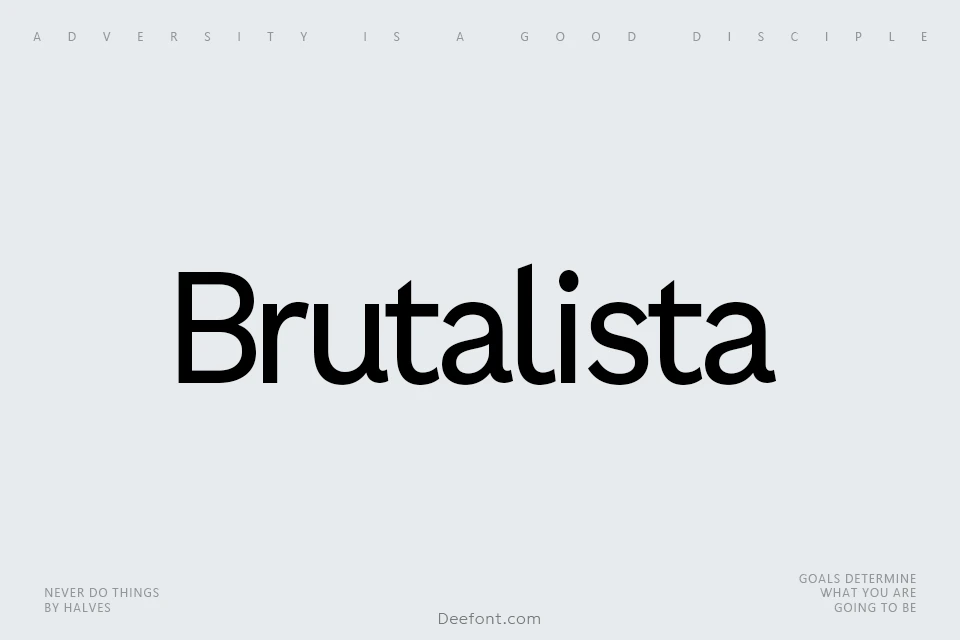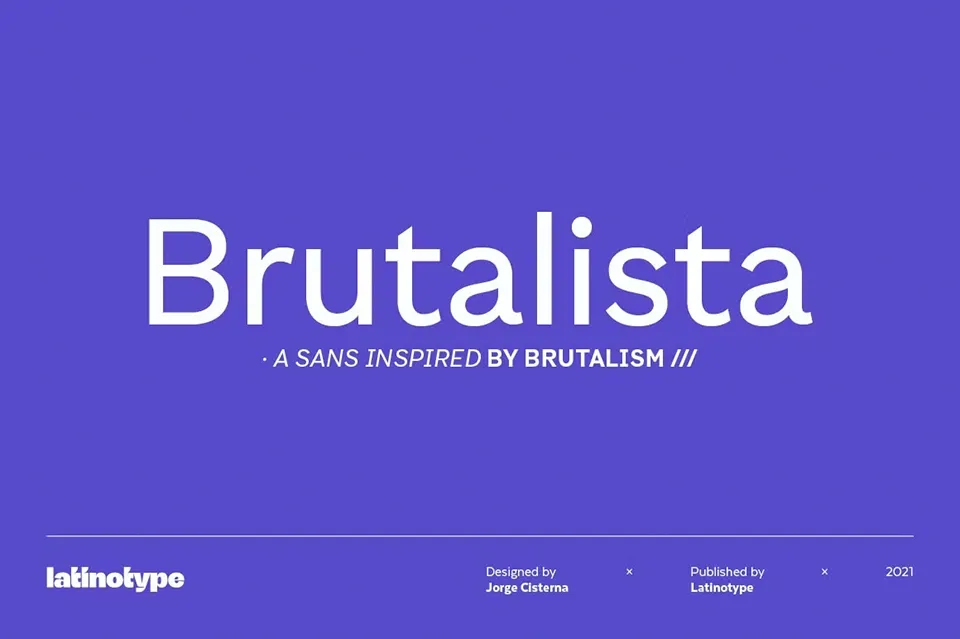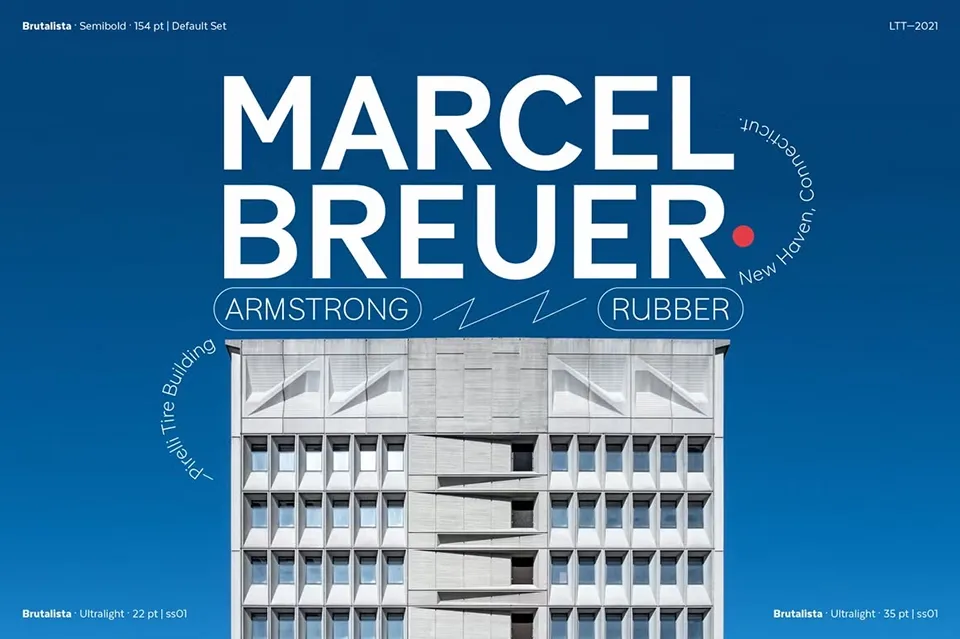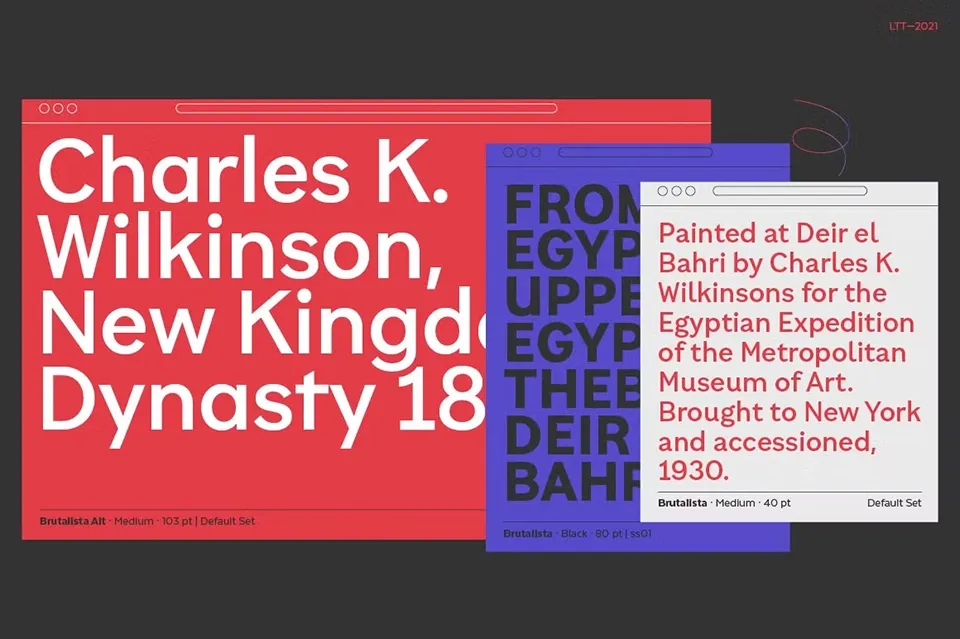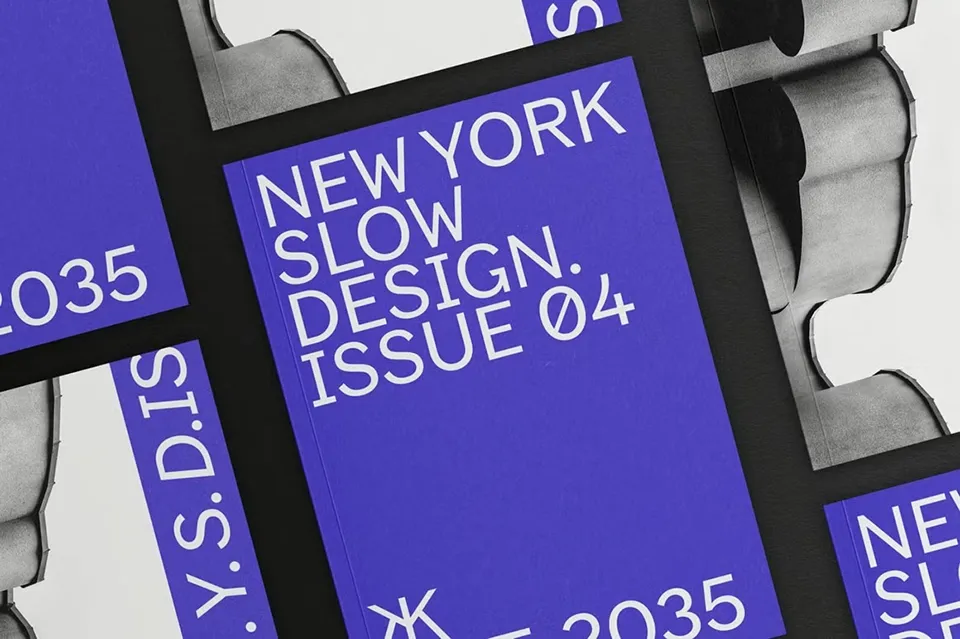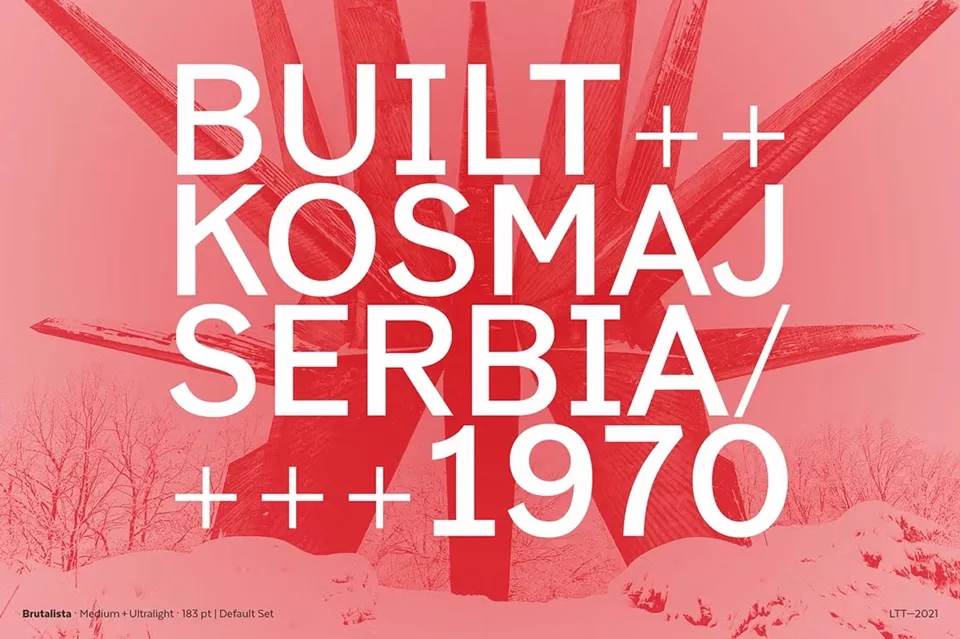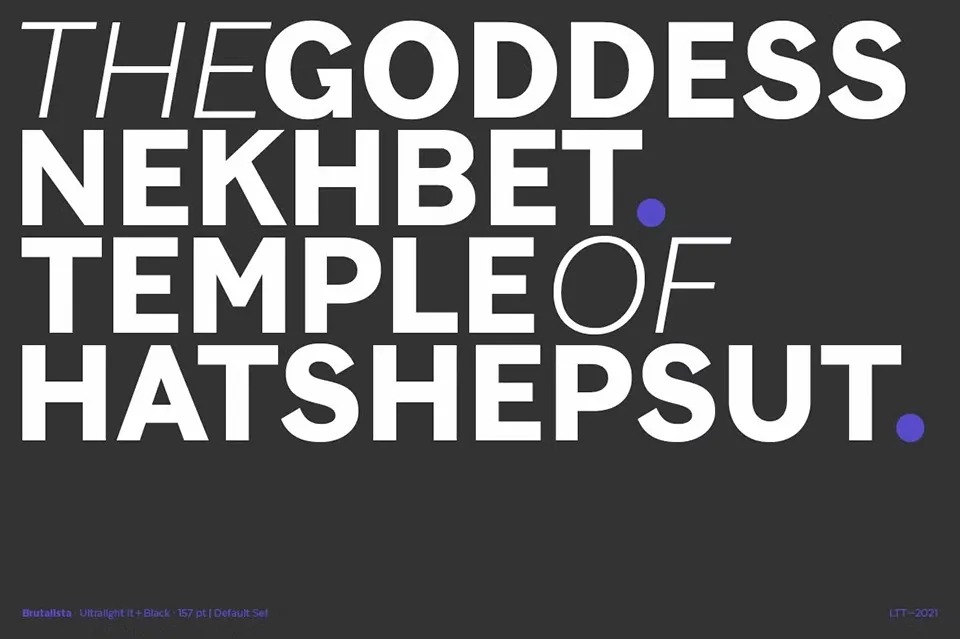
Brutalista Font Family
Brutalista Font Family is a modern sans-serif typeface inspired by the architectural brutalist style, expressing the rawness and materiality characteristic of brutalism. Designed by Jorge Cisterna and published by Latinotype, this geometric font family features 28 styles and draws from grotesque and neo-grotesque influences of the early twentieth century, updated with a contemporary touch. Its medium x-height, clear counterforms, and low contrast provide versatility and functionality, while unique character cuts add personality, making it ideal for headlines, branding, and clear informational layouts.